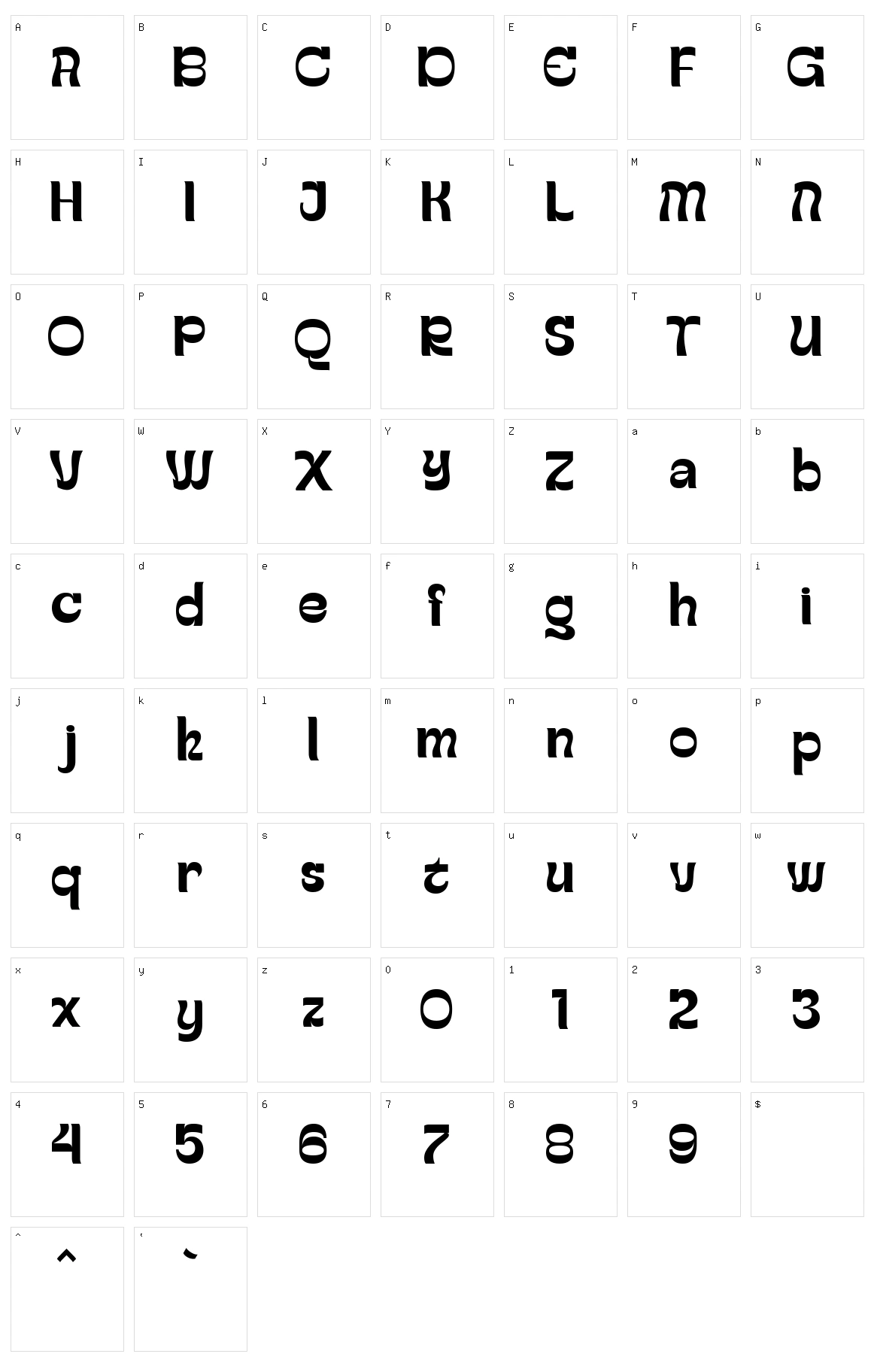
The free font Gayo Wine is carefully designed by Pentagonistudio, showcasing a thoughtful balance of creativity and usability and falls under the Groovy font style. When you download the ZIP file, it contains only 81.04 KB of font files, making it lightweight and quick to download. Please review the license details below to understand permitted usage and distribution rights. If license information is not available, we recommend using this font for personal projects only or contacting the author directly for commercial usage permissions.